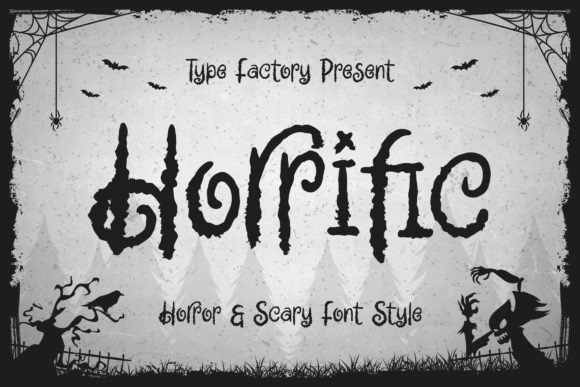
Prepare yourself to journey into the realm of darkness and spine-chilling horror with the Horrific font, a masterpiece crafted by the skilled artisans at TypeFactory. This display font exudes an aura of fear and trepidation that will send shivers down your spine. Unleash your creativity and delve into the world of Halloween, thrillers, and horror with this font that will leave a lasting impression on your audience.
With its sharp edges and menacing curves, the Horrific font embodies the essence of terror like no other. Let your imagination run wild as you craft designs that ooze with mystery and dread. Create captivating T-shirts that will turn heads and spark conversations wherever you go. The Horrific font is your gateway to unleashing your inner storyteller and weaving tales that haunt the depths of the human psyche.
Immerse yourself in the world of haunting graphics, sinister posters, and spine-tingling book covers. The Horrific font is your weapon of choice to evoke emotions that linger long after the page is turned or the screen fades to black. Elevate your designs to new heights of horror and captivate your audience with the raw power of this font. Let the Horrific font be your muse, your companion in the realm of shadows and whispers.